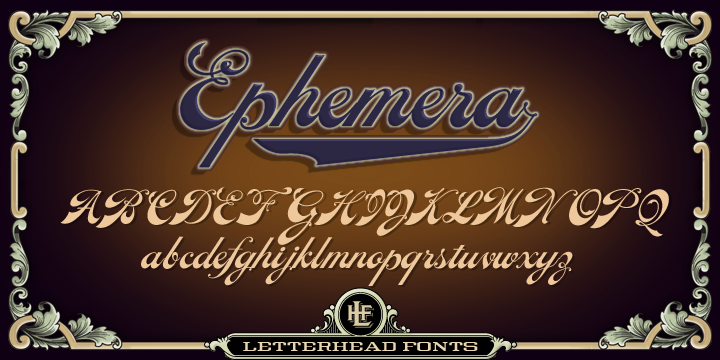
LHF Ephemera Font is perfect for vintage poster reproductions, antique collectible labeling, historical document designs, retro advertising campaigns, nostalgic scrapbook materials, and authentic period piece graphics.
LHF Ephemera Font is exciting because it captures the fleeting beauty and historical charm of vintage ephemera, delivering an authentic typeface that embodies the treasured aesthetics of bygone eras and collectible memorabilia.
The LHF Ephemera Font family includes historical variations: LHF Ephemera Regular, LHF Ephemera Bold, weathered alternates, and decorative elements inspired by vintage advertisements and historical printed materials.
Preserve historical beauty with LHF Ephemera Font Free Download, an authentically crafted typeface that brings vintage charm and historical authenticity to your most nostalgic design projects. This distinctive font excels in creating memorable branding for antique dealers, vintage clothing boutiques, historical museums, and collectible restoration services that celebrate the enduring appeal of historical artifacts and period memorabilia. The carefully designed letterforms feature authentic proportions and subtle aging details that simulate the natural wear and character of vintage printed materials while ensuring excellent readability across all historical applications. Perfect for museum exhibition catalogs, vintage reproduction posters, historical society publications, and period-accurate theatrical productions that need to convey authentic historical atmosphere and respect for cultural heritage, this font connects with collectors and history enthusiasts who appreciate the stories embedded in everyday objects from the past. Each character whispers tales of bygone eras, making every historical message feel like a treasured discovery from a forgotten time capsule. LHF Ephemera Font transforms contemporary communications into precious artifacts that honor the fleeting beauty of historical moments and inspire deeper appreciation for the cultural treasures of previous generations.